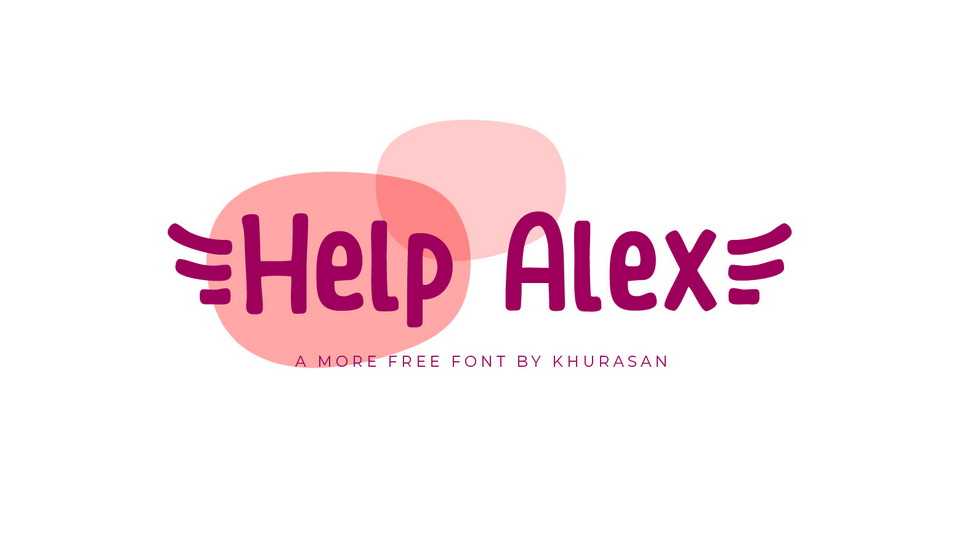
Download Help Alex font, a handcrafted cartoon typeface filled with a playful and fun vibe. Add an eye-catching and whimsical touch to your designs with Help Alex font.